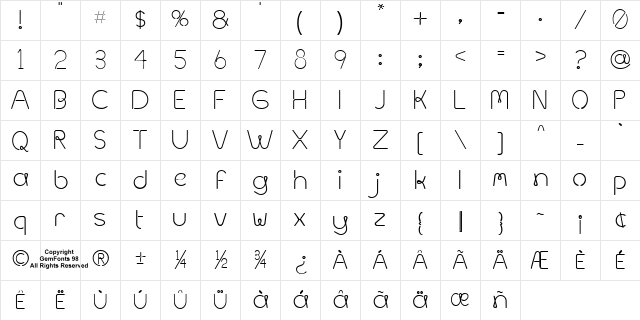
Metal Spagetti Regular
Design Context for Metal Spagetti
Metal Spagetti is a composed and adaptable typeface that performs quietly and consistently across a wide range of design contexts.